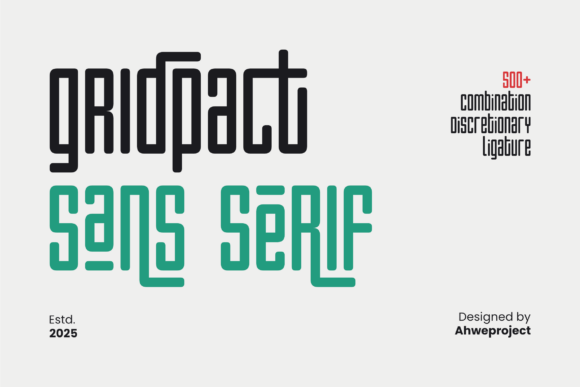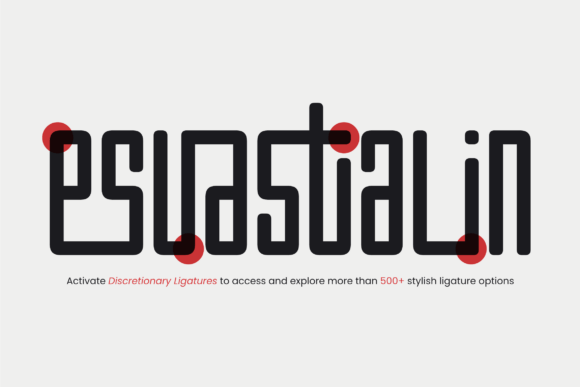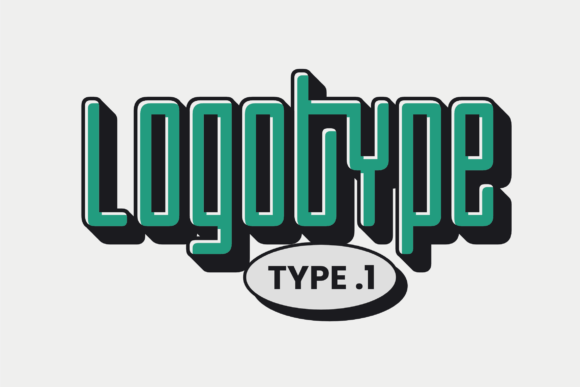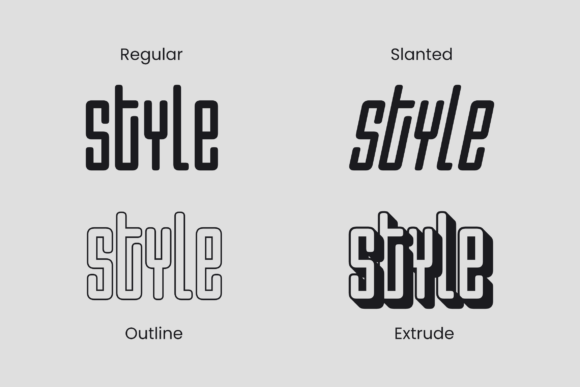
Unlock the Power of Modern Design with Gridpact Font
Have you ever stared at a blank page, struggling to find the perfect font to bring your creative vision to life? We’ve all been there. But what if you had the perfect tool at your fingertips, one that could elevate your designs and make them truly stand out from the crowd? Enter Gridpact Font, a cutting-edge sans serif font designed for the modern designer.
Built on a precise grid system, Gridpact Font offers unparalleled flexibility and style, with over 500 discretionary ligature combinations that give every word a unique and eye-catching look. Whether you’re working on branding designs, electronic music posters, or sci-fi book covers, Gridpact Font is the perfect choice for designers who demand the best.
Gridpact Font Key Features
- Font Family: Gridpact Font is a sans-serif typeface designed for digital use, offering a clean and modern aesthetic.
- Character Set: The font includes a wide range of characters, including Latin, Cyrillic, and Greek alphabets, as well as punctuation marks and symbols.
- Unique Characteristics: Gridpact Font features a unique grid-based design, with carefully crafted letterforms that ensure readability and consistency across different screen sizes and resolutions.
Gridpact Font Review
Gridpact Font has a certain charm to it. The ✨ geometric shapes and clean lines make it a great choice for modern designs. The font is highly customizable, allowing users to adjust the spacing and alignment to suit their needs. I appreciate the ✨ grid-based layout which makes it easy to create consistent and balanced compositions.
- ✨ Geometric shapes and clean lines create a modern look.
- ✨ Highly customizable with adjustable spacing and alignment.
- ✨ Grid-based layout for consistent and balanced compositions.
- ⚠️ Limited character set and language support.
- ⚠️ May not be suitable for text-heavy designs.
- ⚠️ Can appear rigid or inflexible in certain contexts.
Overall, Gridpact Font is a solid choice for designers looking for a modern and customizable font. While it may have some limitations, its strengths make it a great option for certain types of projects. With some careful consideration and planning, Gridpact Font can be a valuable addition to your design toolkit.
Getting the Most Out of Gridpact Font
To get the most out of Gridpact Font, consider the following tips:
- Use Gridpact Font for headings and titles to create a strong visual identity.
- Combine Gridpact Font with other fonts to create a unique and visually appealing typography.
- Experiment with different font sizes and colors to enhance the impact of your text.
Gridpact Font is ideal for:
Q: Does Gridpact Font support Unicode and language-specific characters?
Yes, Gridpact Font supports a wide range of Unicode characters, including Latin, Cyrillic, Greek, and many other languages. This ensures that the font can be used for a variety of language-specific applications, from web and UI design to publishing and printing.